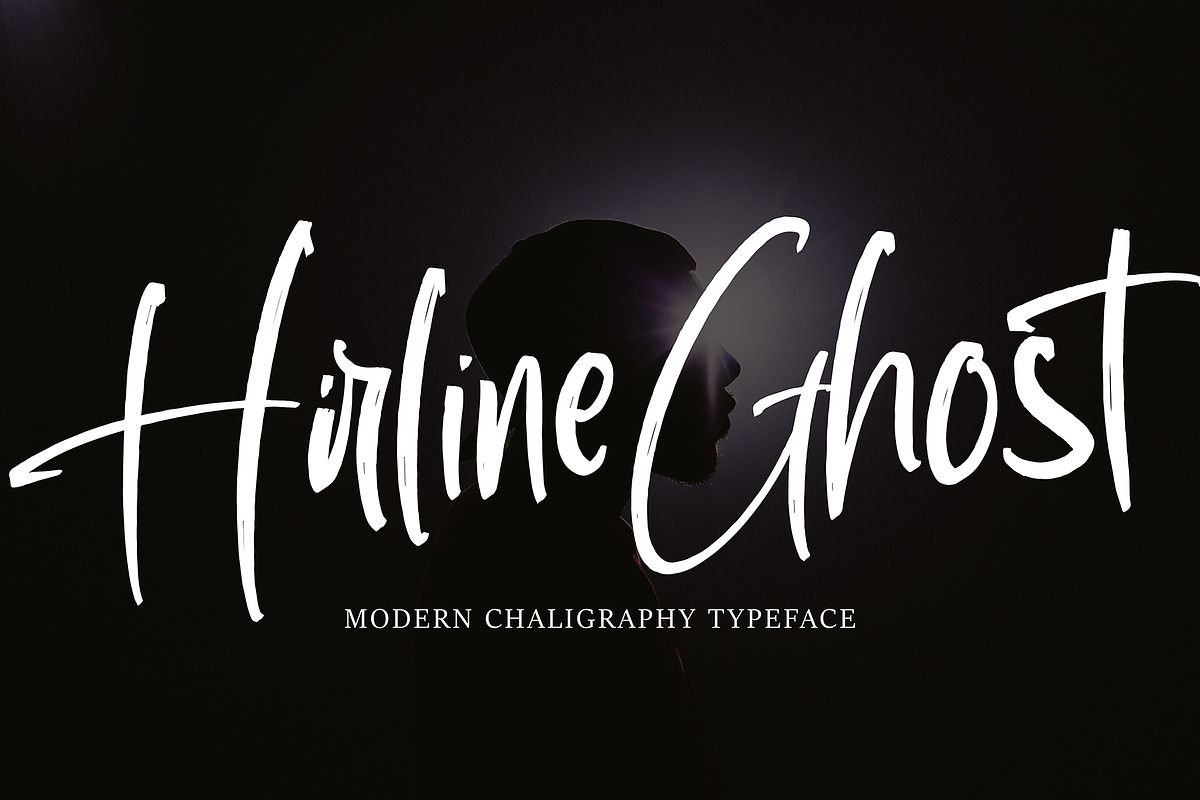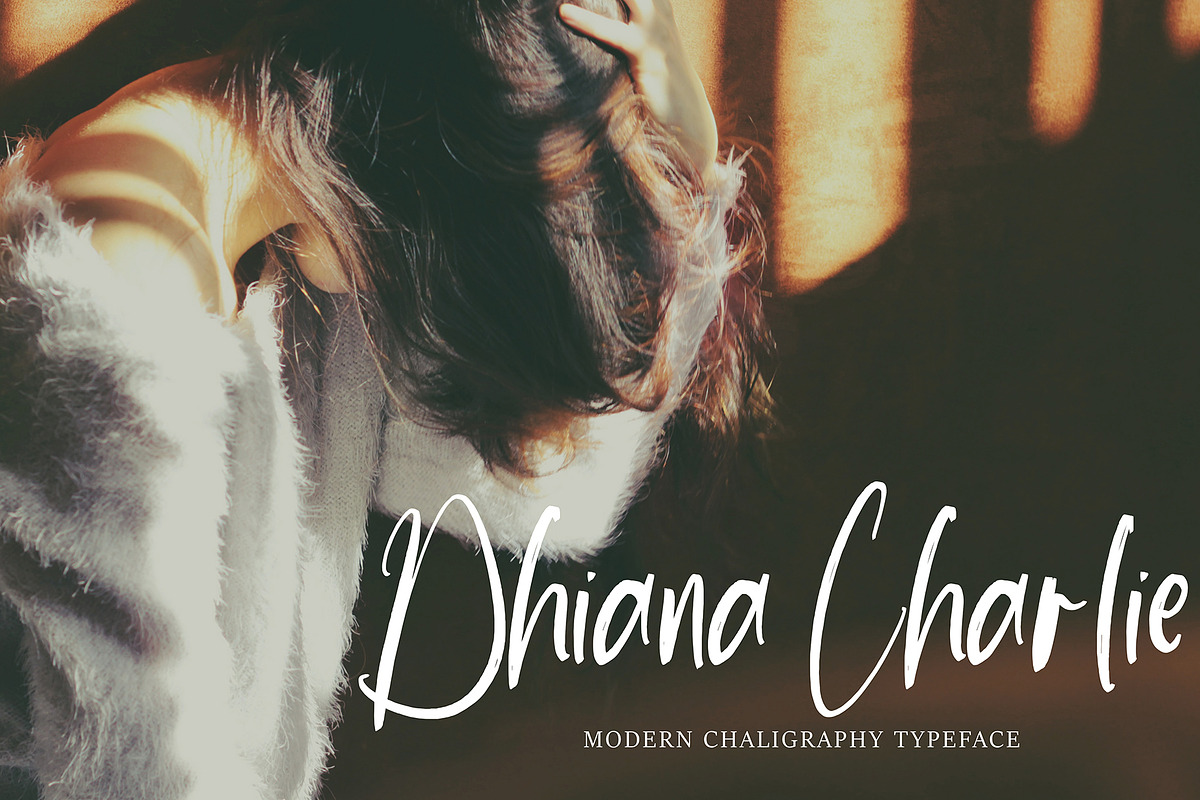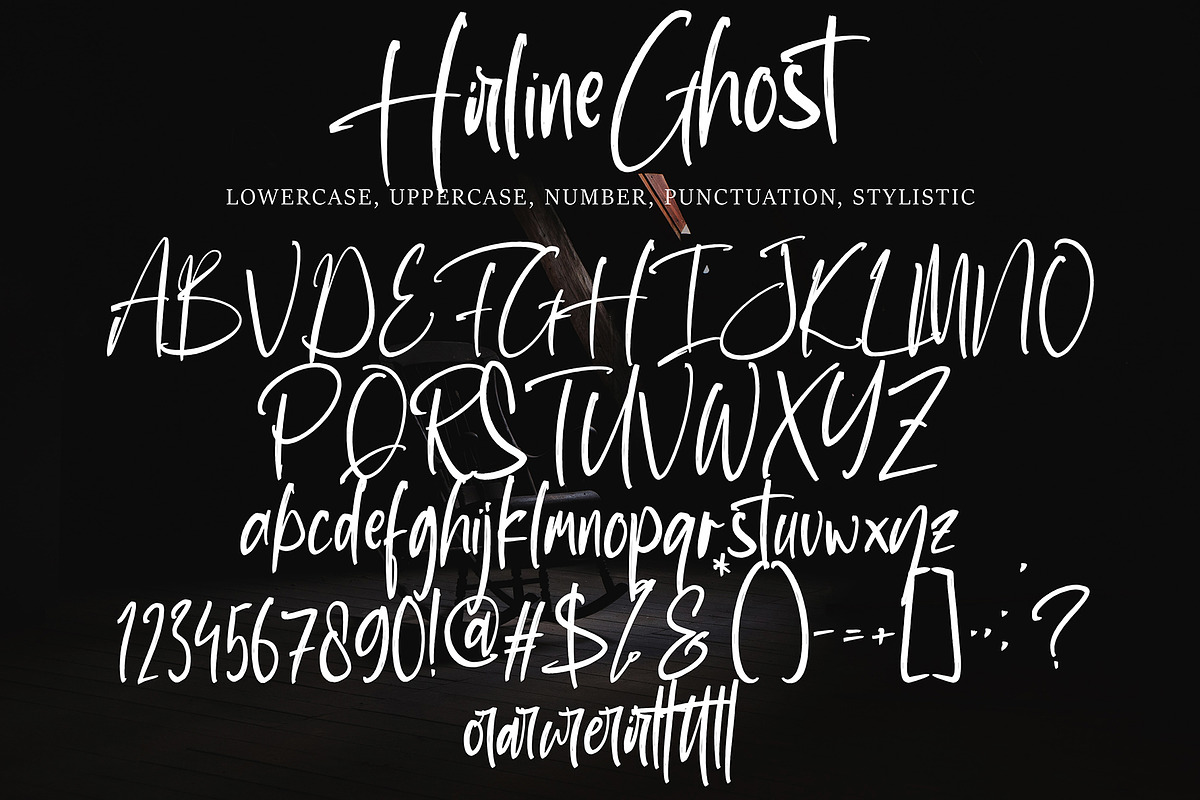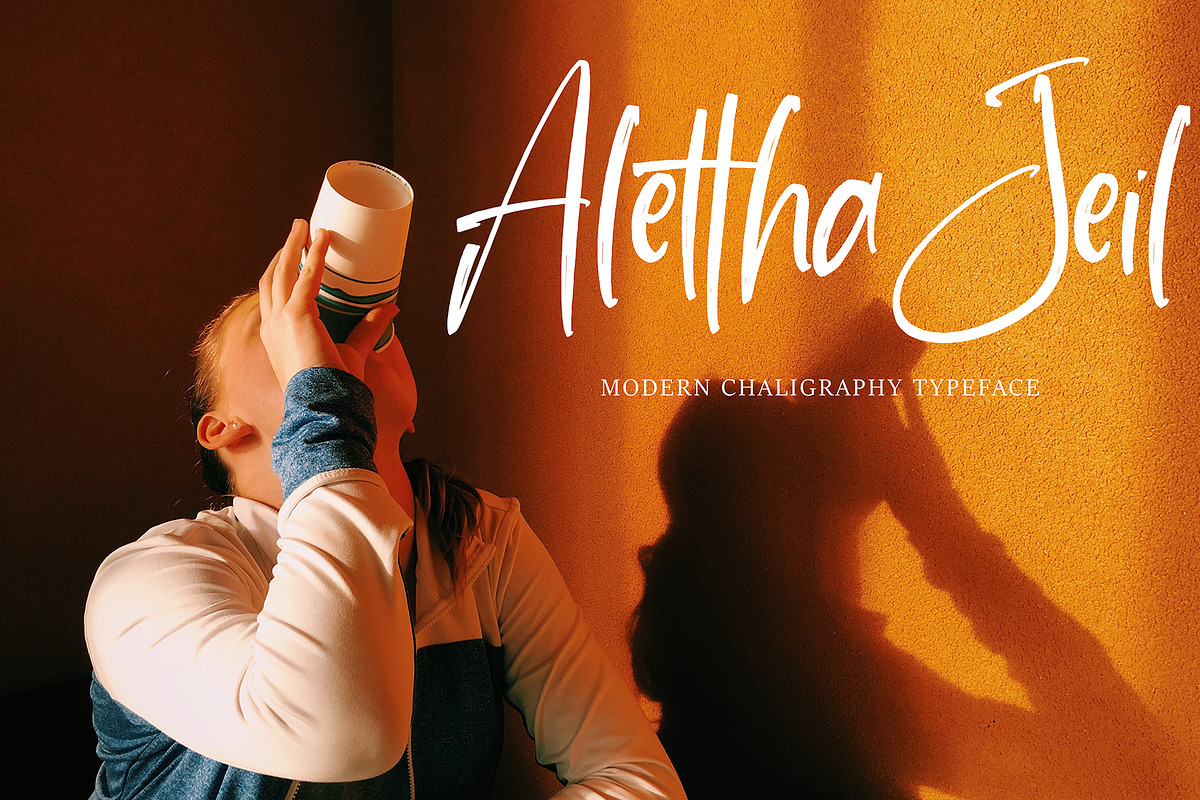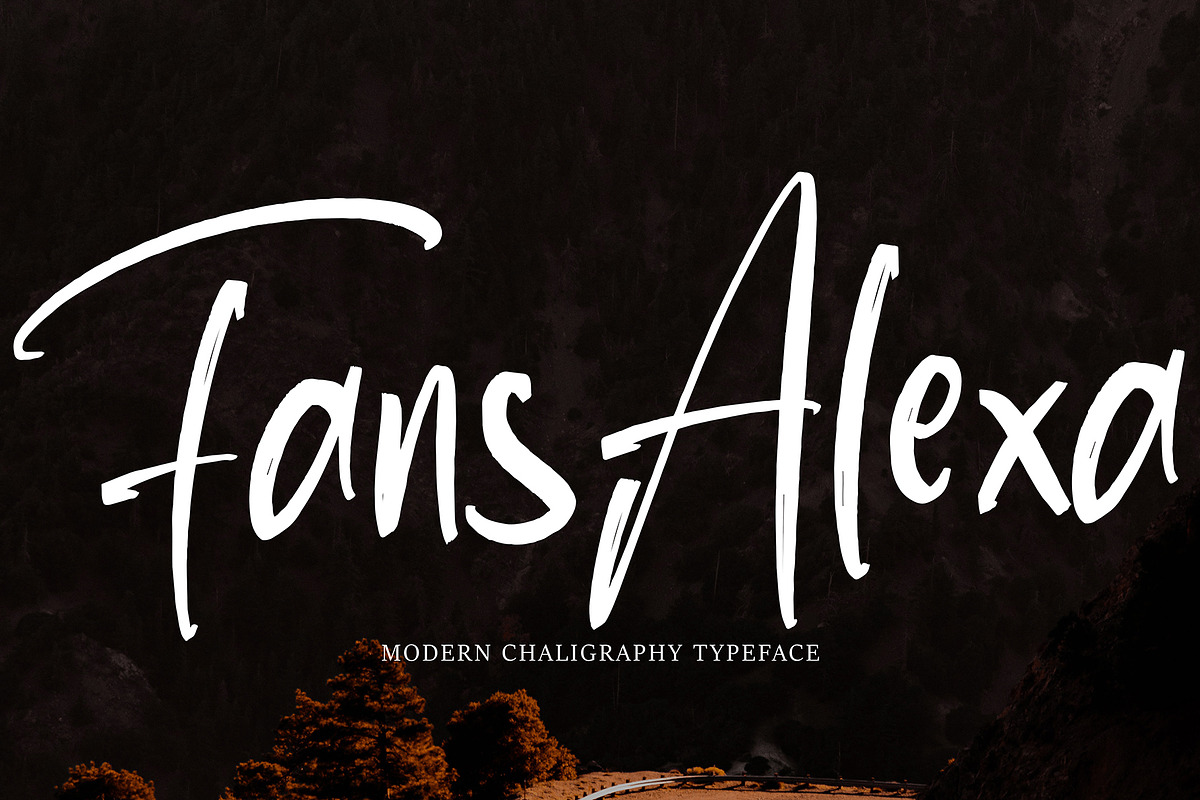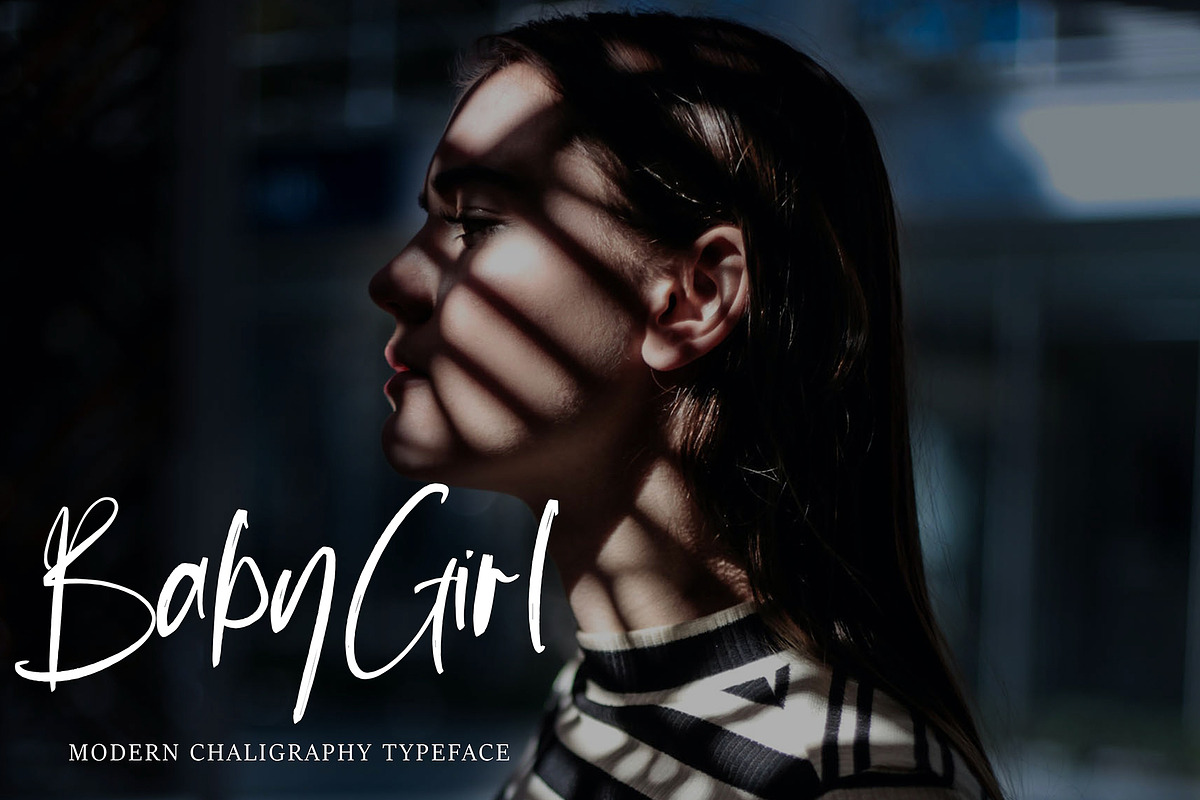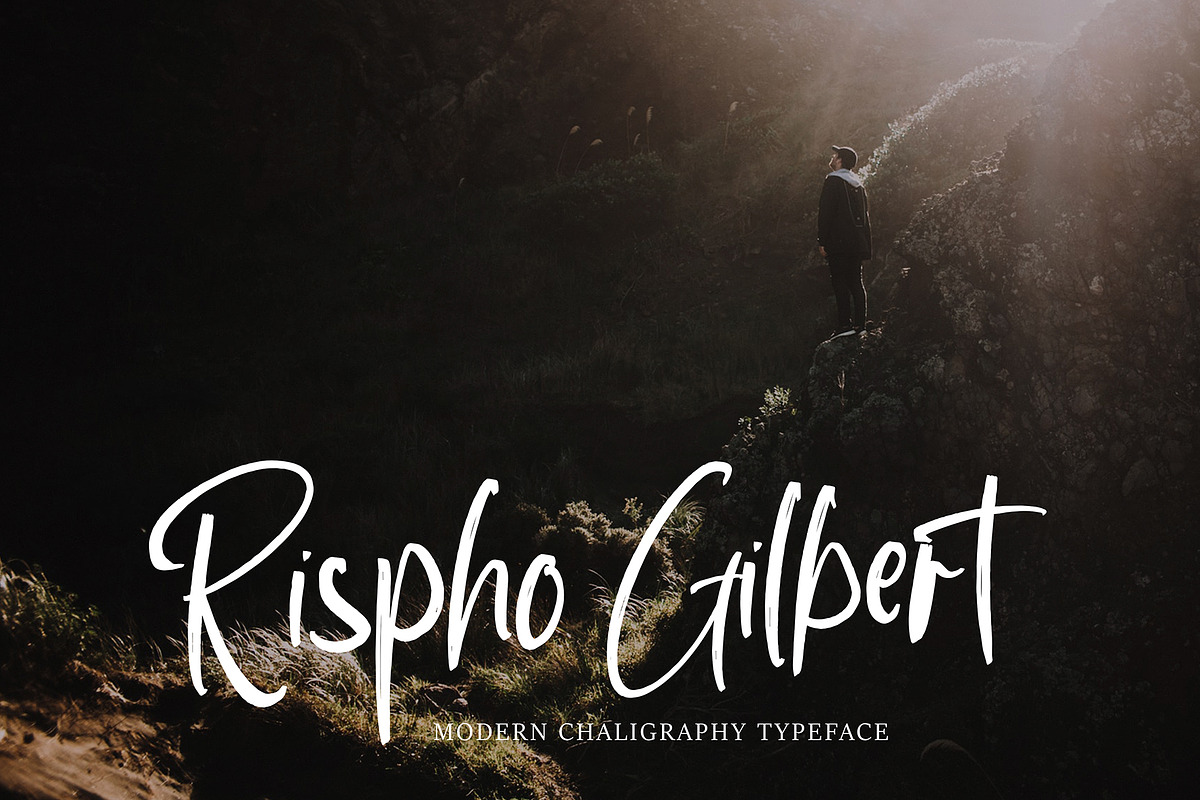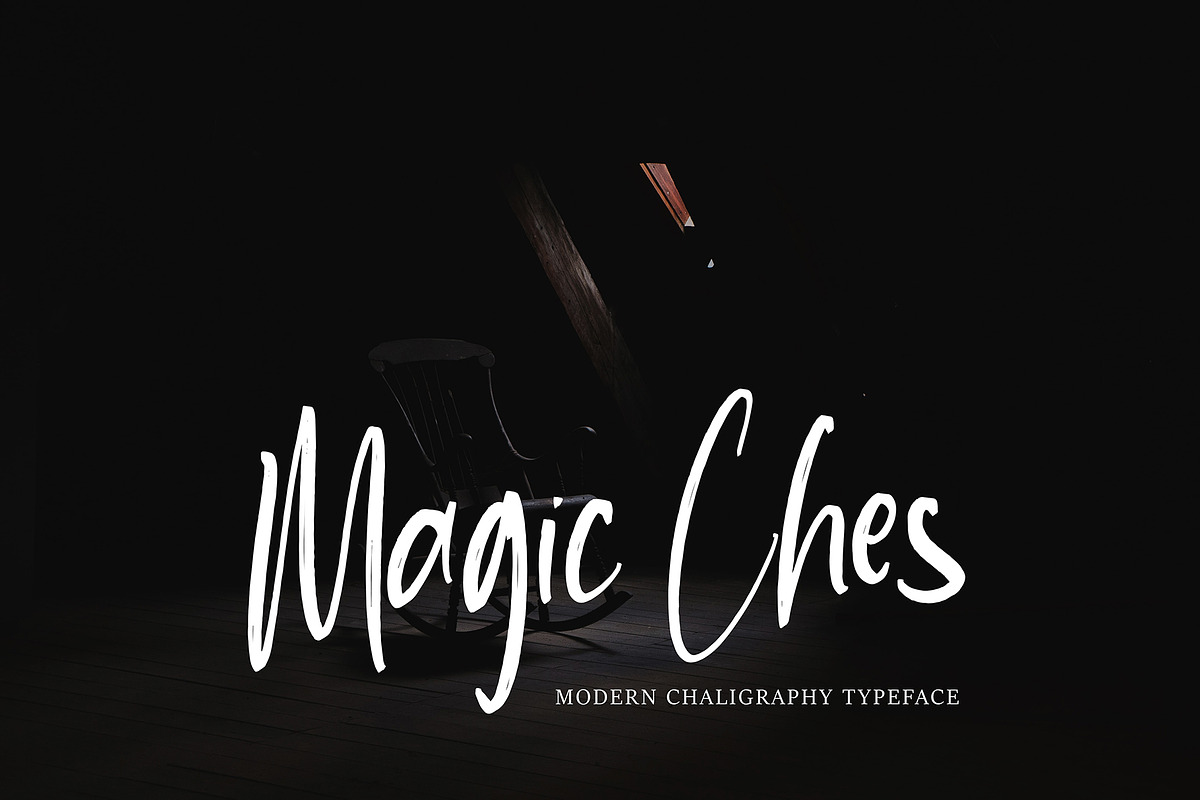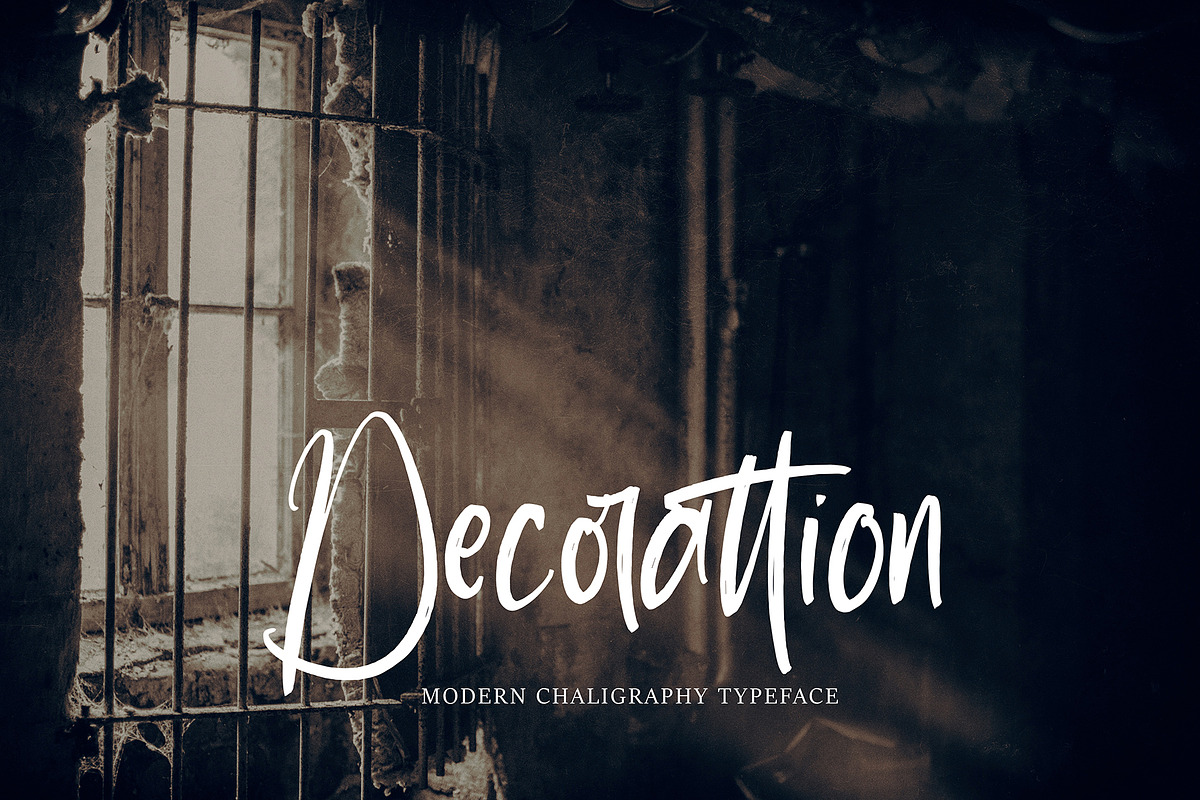
Hirline Ghost
Hirline Ghost font with new style, this font will perfect for many different project ex: quotes, logo, blog header, poster, banding, letter, invitation, stationery, etc...